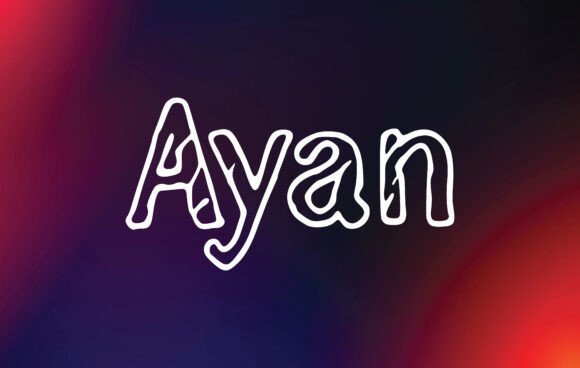
Ayan Font: Elevate Your Creative Vision
Have you ever sat in front of a blank canvas, staring at your computer screen, trying to conjure up the perfect design to bring your creative idea to life? It’s a moment we’ve all experienced – the spark of inspiration, the blank page, and the anticipation of what could be.
That’s where the Ayan Font comes in – a lovely and beautiful handwritten font that can breathe new life into your designs. Whether you’re crafting an eye-catching logo, branding a new product, or adding a touch of elegance to a quote, the Ayan Font is the perfect tool to help you achieve your creative vision. With its unique charm and versatility, this font is a valuable asset for designers looking to elevate their work and stand out in a crowded market.
Discover how the Ayan Font can take your creative ideas to the highest level and unlock your full design potential.
- Unique Characteristics: Ayan Font features a unique blend of traditional and modern elements, with intricate details and subtle nuances that give it a distinctive look and feel.
Ayan Font Review
Overall, I was quite impressed with the Ayan Font. Here’s what I think:
- The font’s modern and sleek aesthetic makes it perfect for contemporary designs.
- The high level of customization options allows designers to tailor the font to their specific needs.
- The font’s legibility is excellent, making it a great choice for body text and headlines.
- The font’s limited character set may be a concern for designers who need to use non-Latin scripts.
- The font’s bold weight can sometimes appear a bit too bold, making it difficult to read in certain contexts.
Overall, I think the Ayan Font is a solid choice for designers who are looking for a modern and customizable font. While it has some limitations, its strengths far outweigh its weaknesses. I would definitely consider using it in future projects.
Tips for Getting the Most Out of Ayan Font
Use Ayan Font for creating visually appealing headings and titles.
Pair Ayan Font with other sans-serif fonts for a clean and modern look.
Experiment with different font sizes and styles to create a unique visual hierarchy.
Ayan Font is ideal for:
Alternatives to Ayan Font
Inter Font is a clean and modern sans-serif font designed for digital interfaces. It’s ideal for use in digital products, web design, and mobile apps. Inter Font is highly legible and works well in both body text and headings. Compared to Ayan Font, Inter Font has a more neutral and minimalist aesthetic, making it a versatile choice for various design projects.
Montserrat Font is a geometric sans-serif font inspired by urban typography. It’s perfect for use in headlines, titles, and body text in modern and edgy designs. Montserrat Font has a more dramatic and bold appearance compared to Ayan Font, making it suitable for designs that require a strong visual statement.
Open Sans Font is a clean and highly legible sans-serif font designed for digital interfaces. It’s ideal for use in body text, headings, and captions. Open Sans Font is highly versatile and works well in a wide range of design projects, from web design to print materials. Compared to Ayan Font, Open Sans Font has a more neutral and approachable aesthetic, making it a great choice for designs that require a friendly and approachable tone.